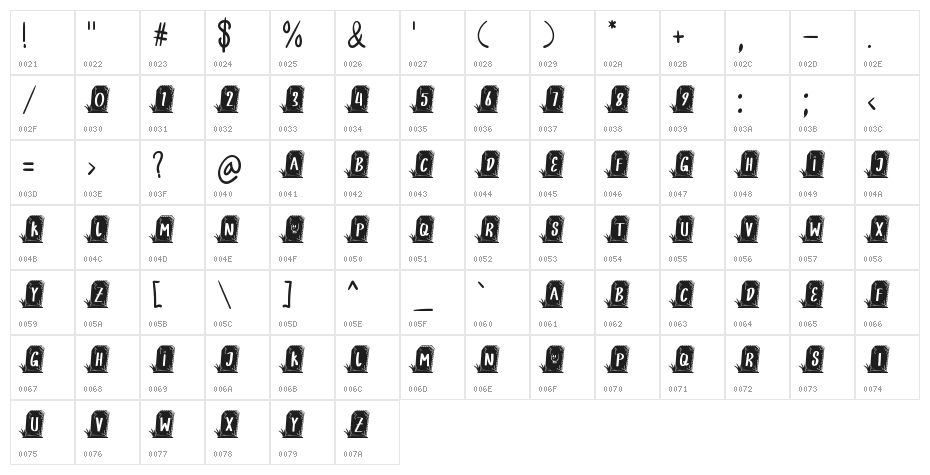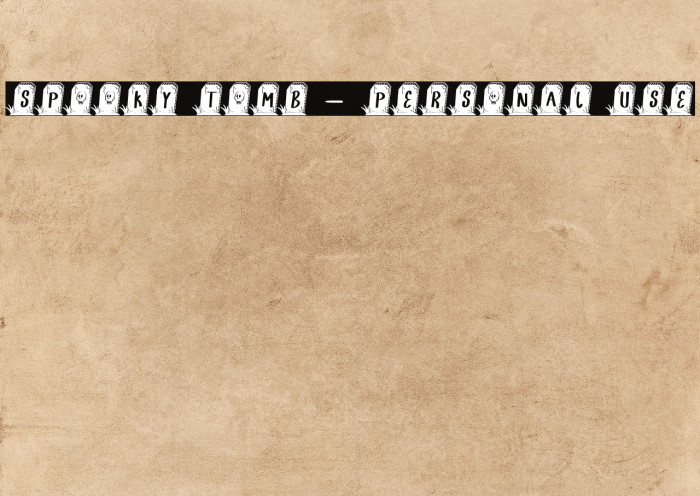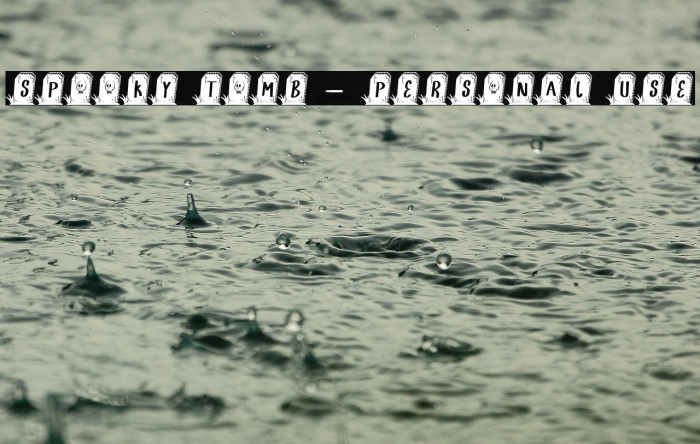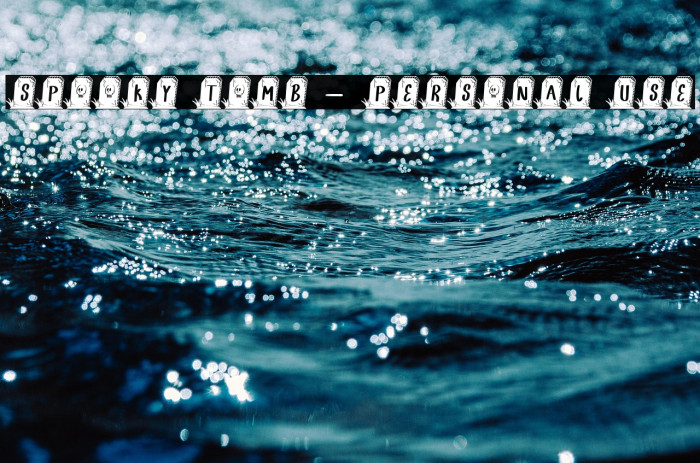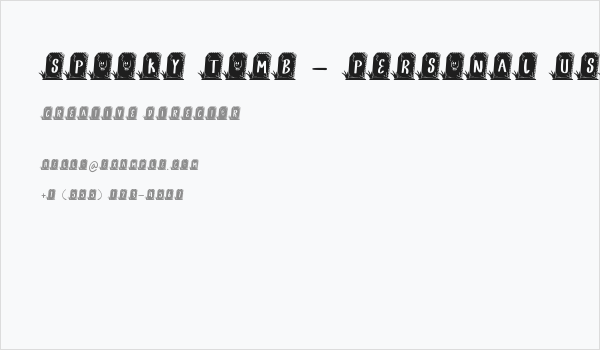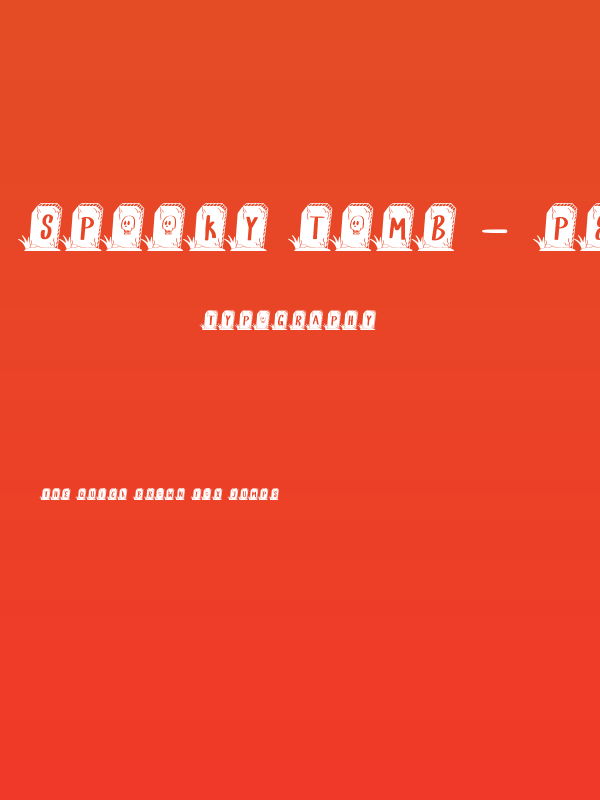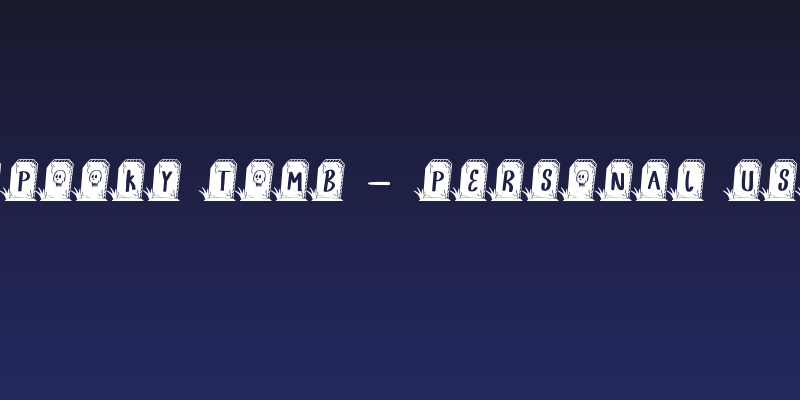
SPOOKY TOMB - Personal Use Font
SPOOKY TOMB - Personal Use Description
This font features a playful and spooky design, with each character set against a tombstone backdrop. The letters are bold and slightly irregular, adding to the eerie, Halloween-themed aesthetic. The uppercase and lowercase letters maintain a consistent style, with a hand-drawn appearance that enhances the whimsical yet haunting vibe. Numbers and special characters are also included, each fitting seamlessly into the tombstone motif. The font's unique style makes it ideal for themed projects that require a touch of the macabre.
| Use Case | Headlines, Logos, Themed Events |
| Proposed Projects | Ideal for Halloween invitations, themed posters, party decorations, and spooky event branding. |